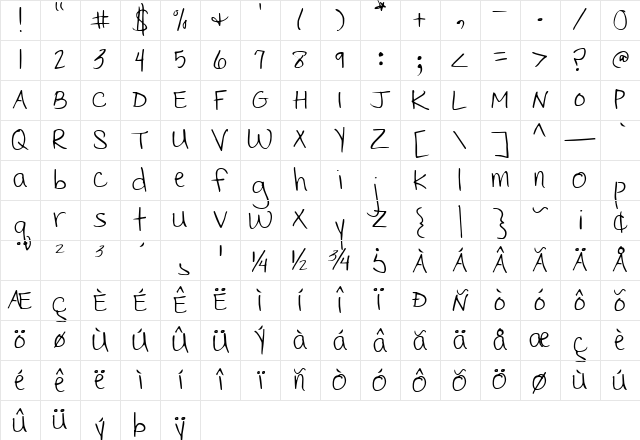
Complete KG Cedarville Pnkfun 1 Print Regular glyph index. Displaying only characters natively supported by KG Cedarville Pnkfun 1 Print Regular font.
KG Cedarville Pnkfun 1 Print has an approachable, lighthearted character - its loose, expressive forms are well-suited to children's content, casual branding, and fun-first design.
Font Pairing: Pairs well with a rounded or humanist sans for body copy, maintaining the friendly tone without relying on KG Cedarville Pnkfun 1 Print to carry extended reading.
Pro Tip: Use KG Cedarville Pnkfun 1 Print at larger display sizes where its expressive character can land. Pair with a clean, simple sans for body copy to maintain readability.